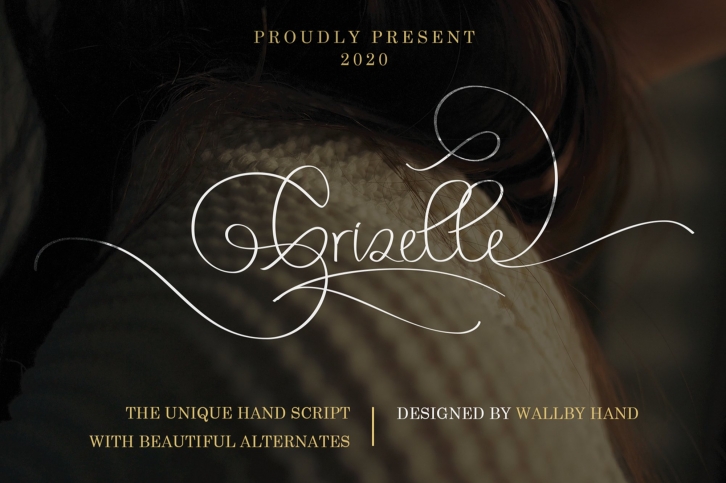
Grizelle is a great font that was designed by Wallbyhand. Imagine the amount of combinations you can create using this font! The archive is 10.62 MB and it was released on July 5, 2020. Grizelle looks beautiful on wedding invitations, greeting cards, logos, posters, labels, t-shirt designs, logos, business cards and is perfect for use in ink or watercolor works, fashion, magazines, packaging and food menus, children's books and more!